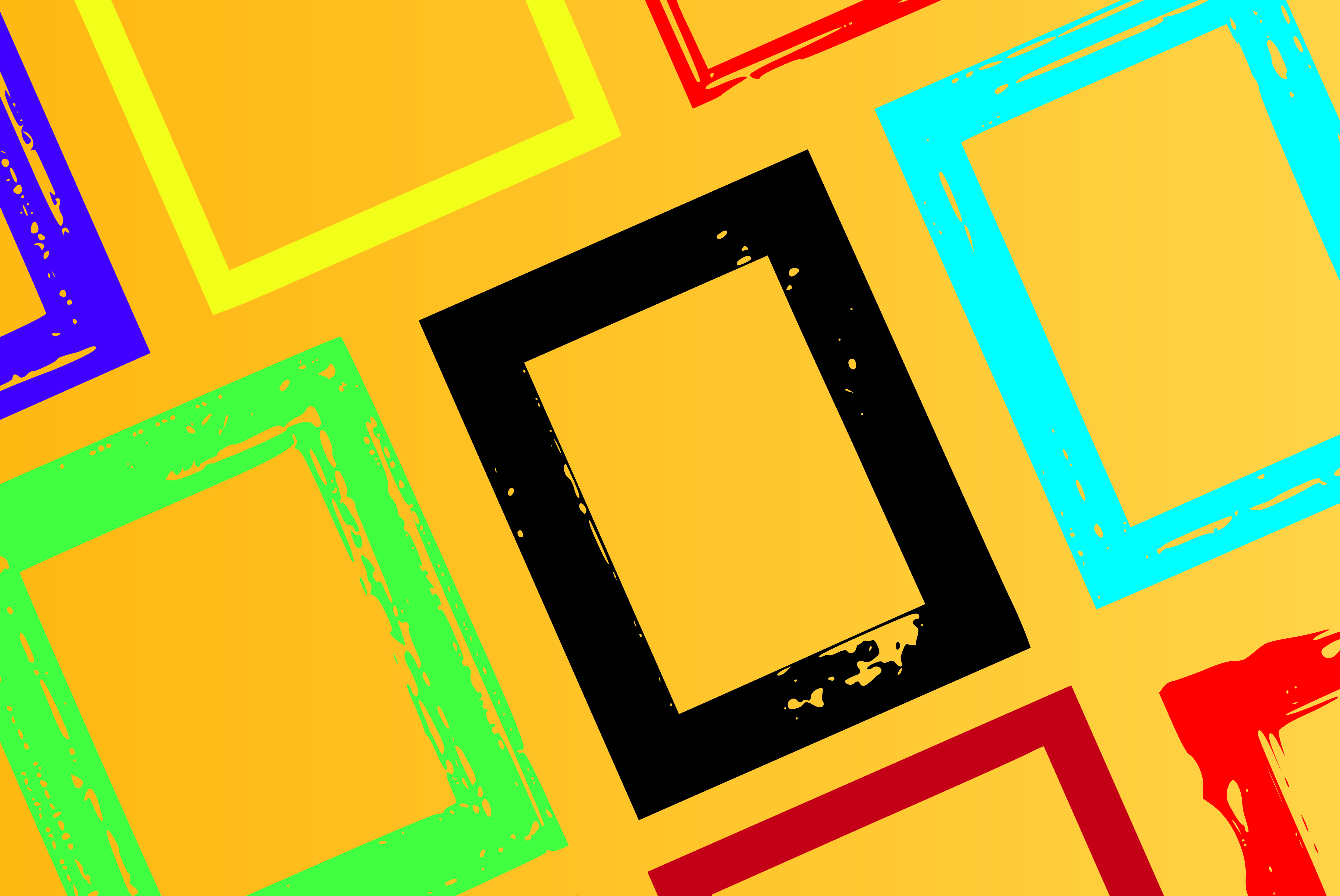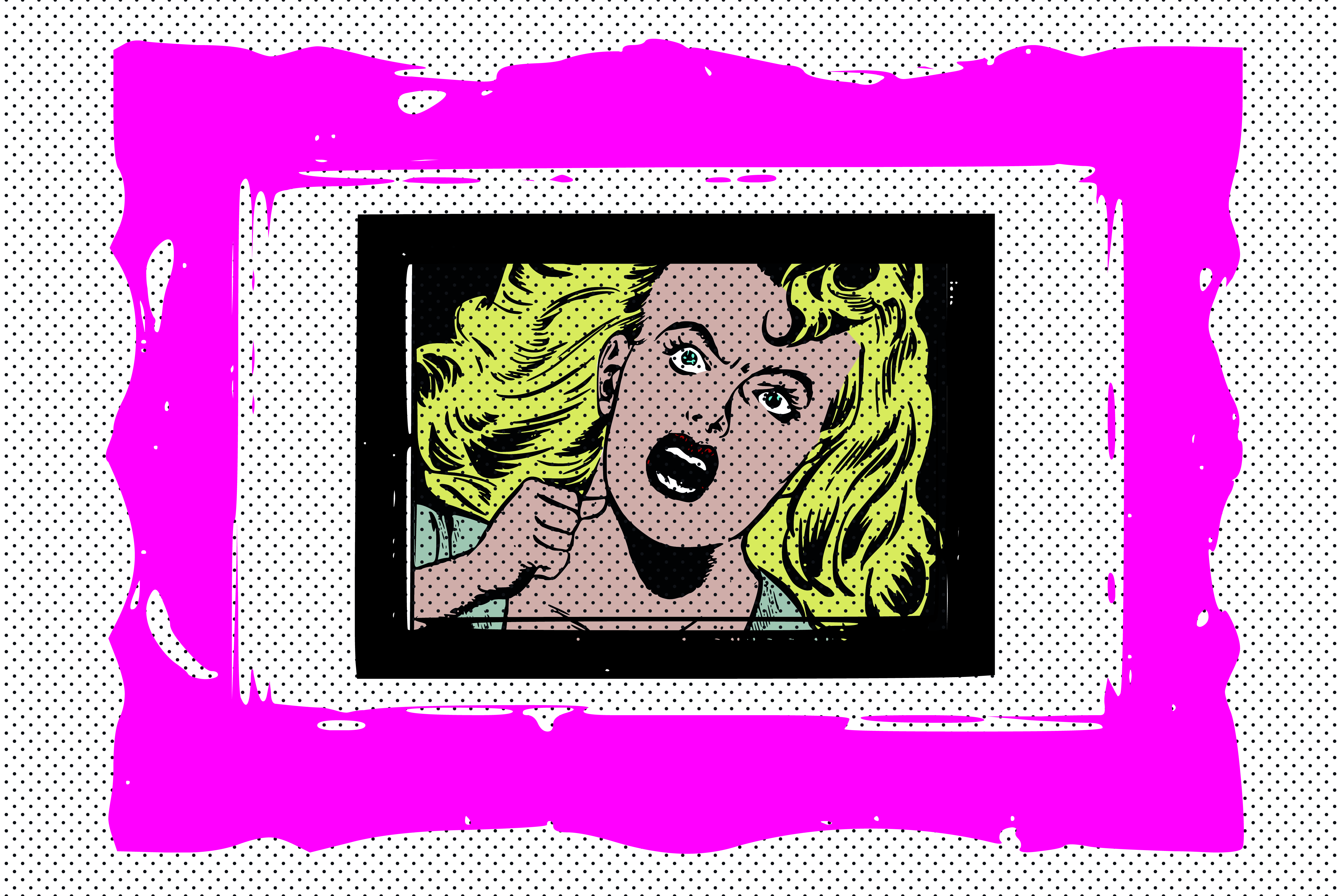
Framed Font: Elevate Your Designs with Versatile and Affordable Frames
Are you tired of using traditional, bulky, and expensive wooden, plastic, and glass frames in your designs? Look no further! Framed Font offers a game-changing solution with a vast collection of stylish and affordable frames in various portrait and landscape orientations. With these frames, you can add a touch of elegance and sophistication to your images, icons, graphics, and more.
One of the most significant advantages of Framed Font is its incredible versatility. The frames come in a wide range of styles, shapes, and sizes, allowing you to experiment with different combinations to achieve the desired look. You can pair them with images, icons, graphics, or even text to create stunning visual compositions. Whether you’re a designer, crafter, or DIY enthusiast, Framed Font provides the perfect tools to bring your creative vision to life.
Perfect for Various Applications
Framed Font frames are designed to be adaptable and can be used in various applications. Here are a few ideas to get you started:
- Prints and Posters: Create eye-catching prints and posters for your home or office. The frames look amazing on large-format prints, making them perfect for statement pieces.
- Canvas: Add a touch of sophistication to your canvas prints with Framed Font frames. They come in various styles to suit your artistic taste.
- Mugs and Keyrings: Print your favorite images or designs on mugs and keyrings using Framed Font frames. They make for thoughtful gifts or personalized accessories.
- Family Portraits: Create beautiful, framed family portraits that will become treasured keepsakes. You can choose from various frame styles to match your home decor.
Easy to Use and Customize
Framed Font frames are designed to be user-friendly and customizable. You can easily combine them with your images, icons, or graphics to create unique visual compositions. The frames come in various formats, making it simple to integrate them into your design workflow.
Framed Font frames offer numerous benefits for designers and crafters, including:
- Time-Saving: Our frames are pre-designed and ready to use, saving you time and effort in your design process.
- Creative Freedom: With a vast range of frame styles and orientations, you have the creative freedom to experiment and try new things.
- High-Quality: Our frames are designed to be high-quality and visually appealing, ensuring your designs look professional and polished.
In conclusion, Framed Font offers a revolutionary solution for designers, crafters, and DIY enthusiasts looking for versatile, affordable, and stylish frames. With a vast collection of frames in portrait and landscape orientations, you can create stunning visual compositions that make an impact. Say goodbye to traditional, bulky frames and hello to a world of creative possibilities with Framed Font.